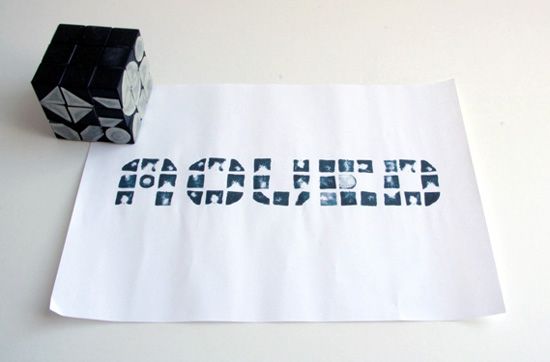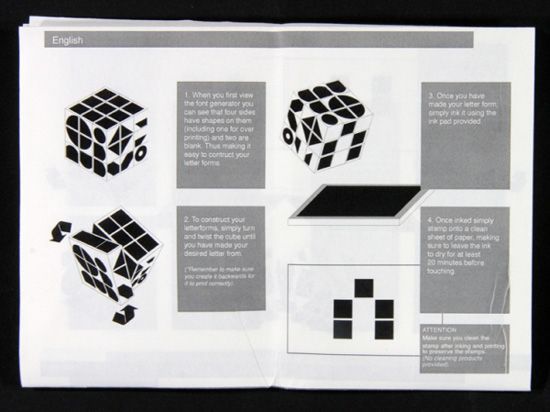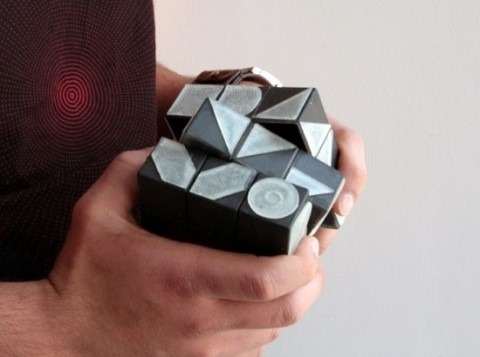
Rubik's Cube Font Generator
Taking something very familiar and twisting it into something new, this "Rubik's Cube Font Generator" adapts the swiveling, rotating form-factor of the classic puzzle and changes it into a printing stamp. The handiwork of Jas Bhachu of the Liverpool School of Art & Design, the cube has rubber stamp impressions on four of its sides, and by twisting it through different orientations can create a variety of characters.
Inside the packaging there's the cube itself, an ink pad and the instructions, which show all of the different arrangements which can be used to make letters and numbers. It'll be time-consuming and laborious, of course, not to mention messy, but if you want to print your own posters with a minimum of tools then this is certainly one approach.
It seems unlikely that this will ever reach production, but it wouldn't be too tricky to recreate yourself. Some thin rubber, glue and an old Rubik's Cube should get you started.